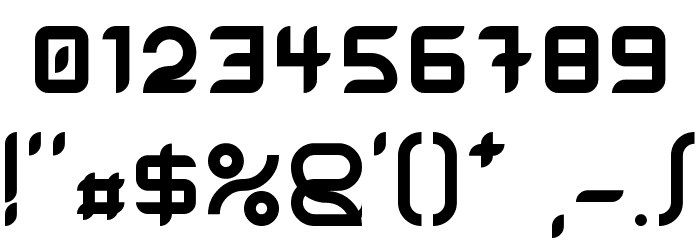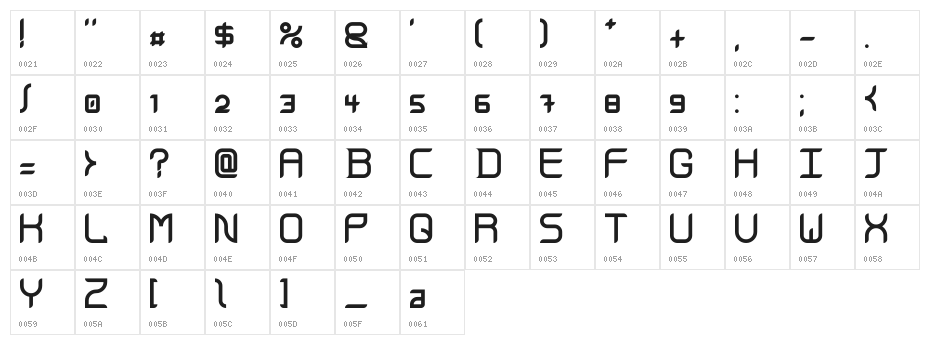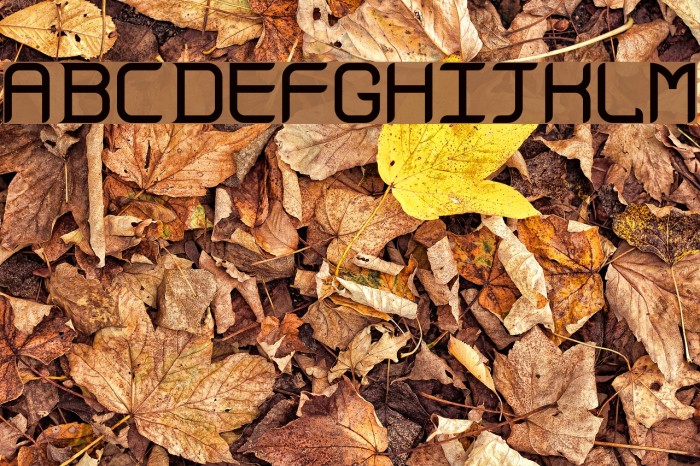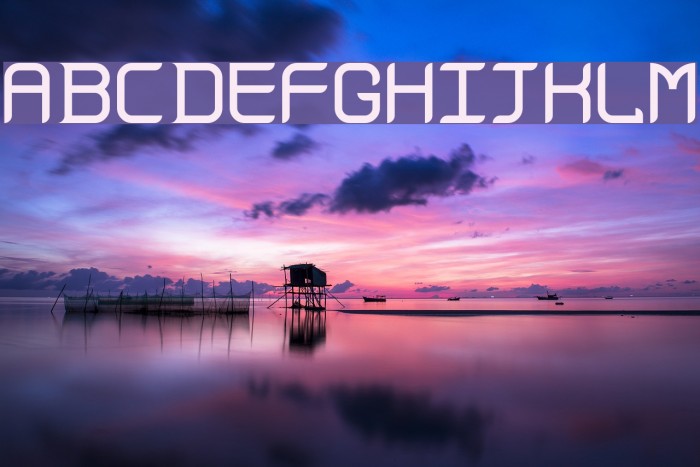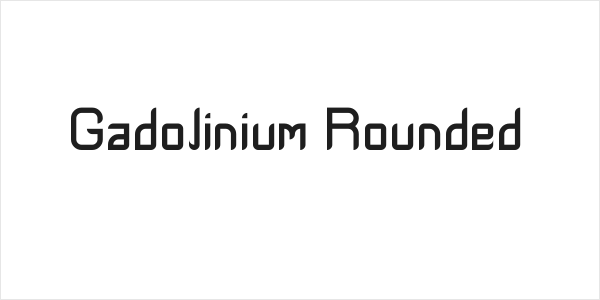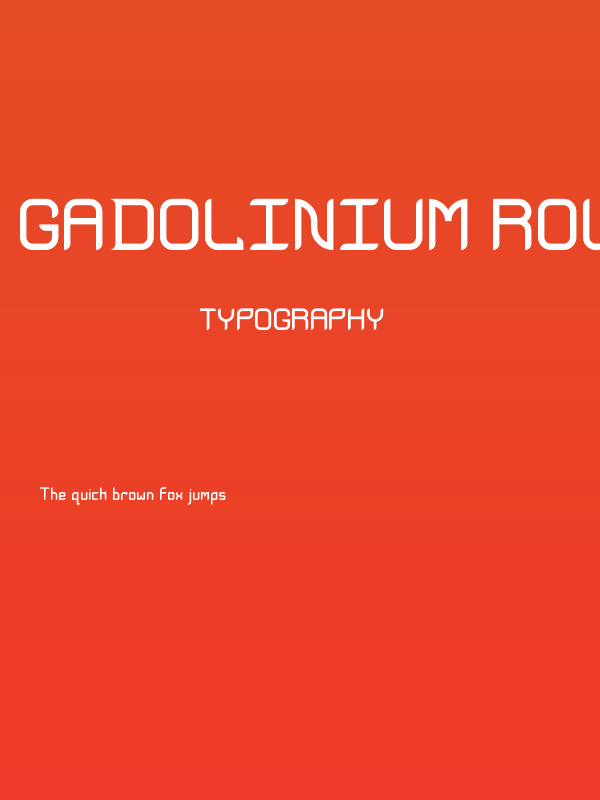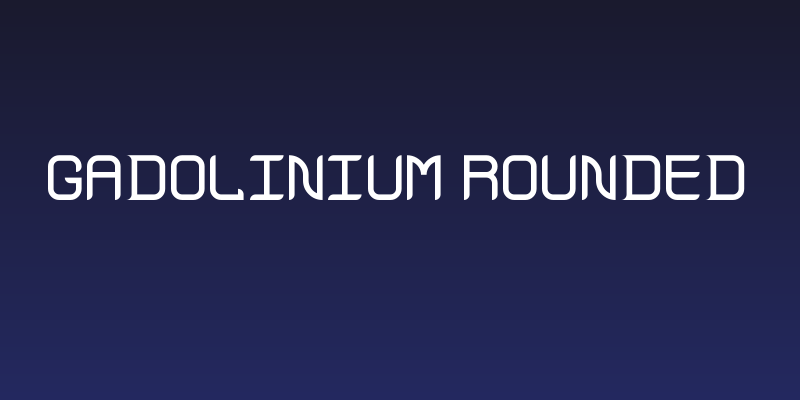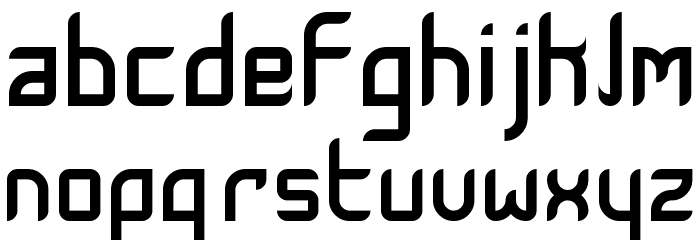
Gadolinium Rounded Font
Gadolinium Rounded Description
This font features a modern, rounded design with a geometric structure. The characters are uniform in width, providing a clean and consistent appearance. The rounded edges soften the overall look, making it approachable and friendly. The uppercase and lowercase letters maintain a balanced proportion, while the numerals are clear and legible. Special characters are distinct and well-integrated into the font's style. The overall aesthetic is contemporary, suitable for digital and print media.
| Use Case | Headlines, Logos, User Interfaces |
| Proposed Projects | Ideal for tech branding, user interfaces, modern advertising, and digital content. |